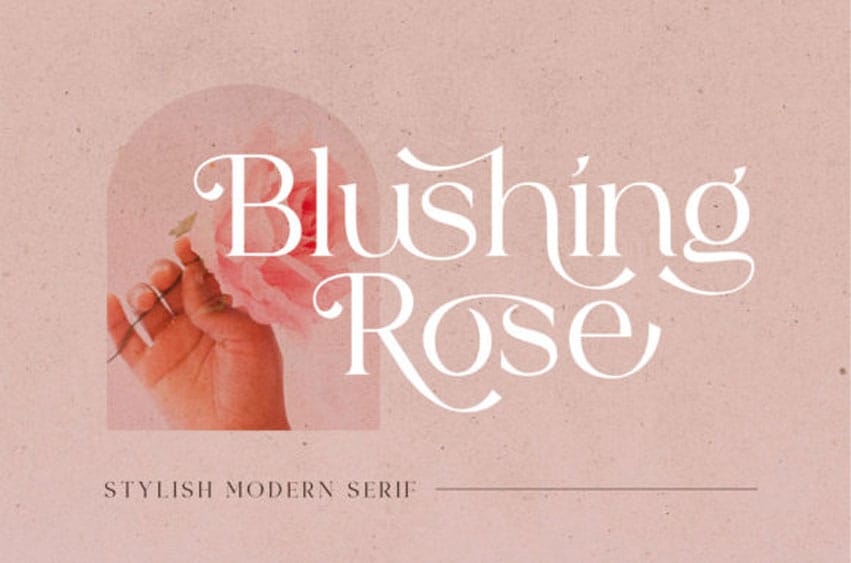
Blushing Rose Font is an elegant and stylish serif font. Trendy and stylish, this font will elevate each of your creations.
Add this font to your most creative ideas, and notice how it makes them stand out!